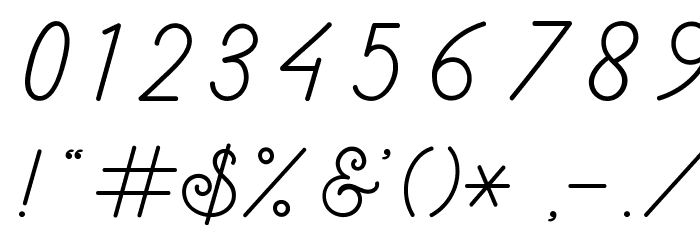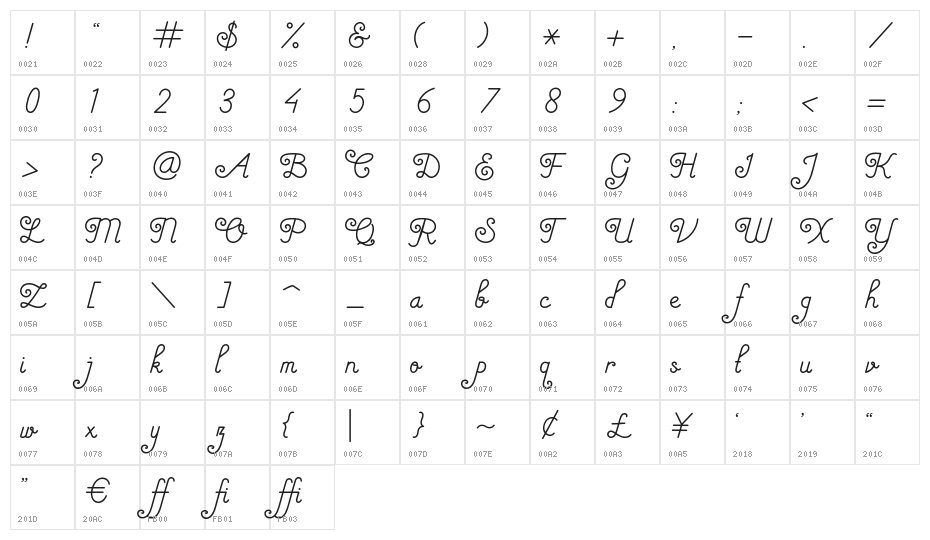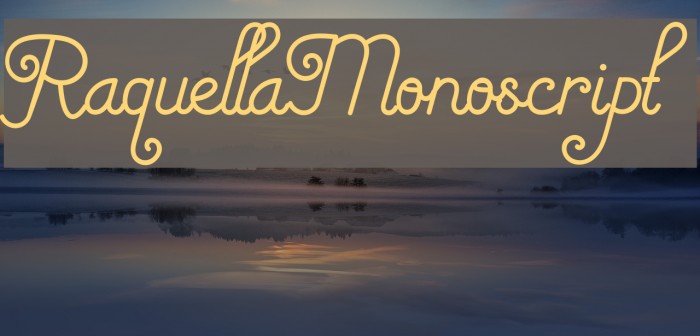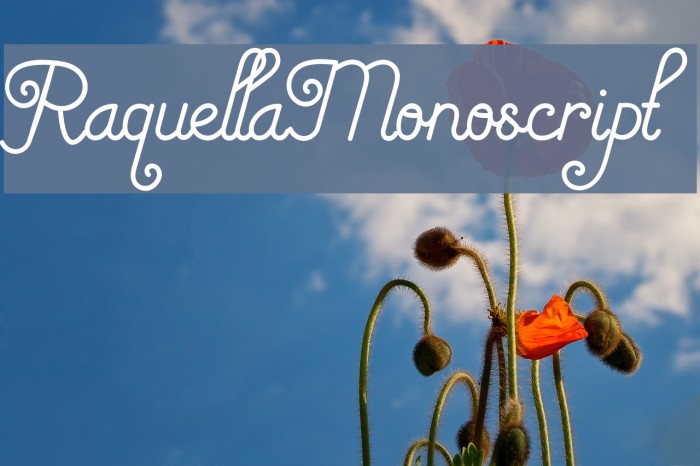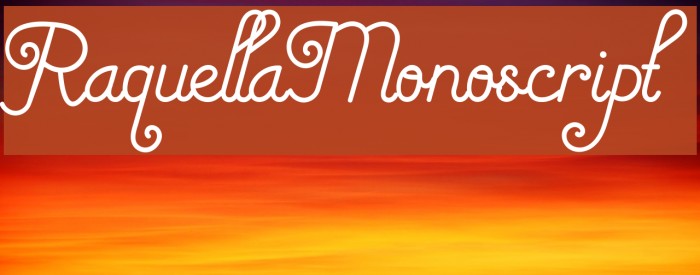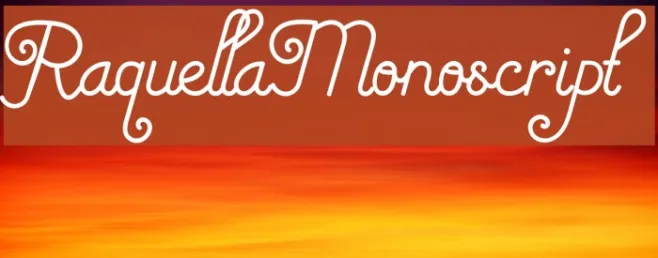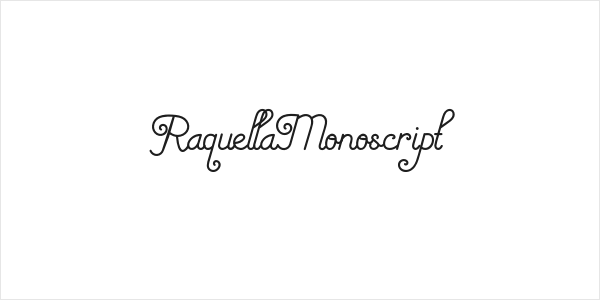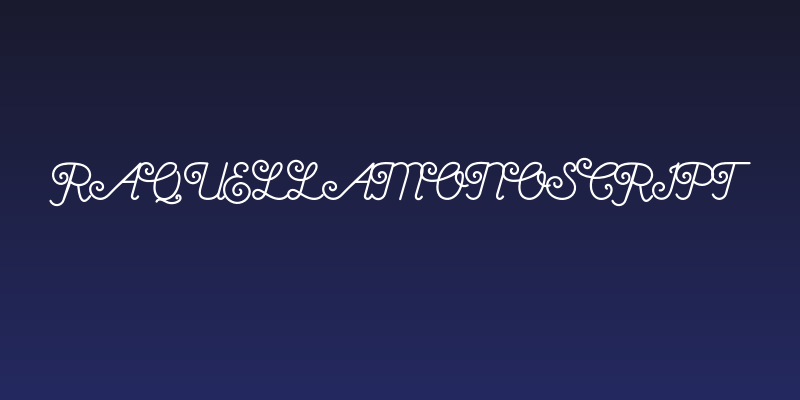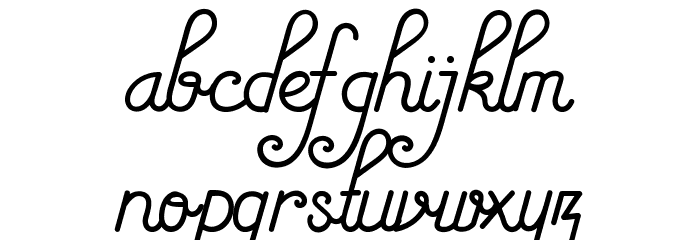
RaquellaMonoscript Font
RaquellaMonoscript Description
This font features an elegant and flowing script style with a whimsical touch. The uppercase letters are adorned with intricate swirls and loops, giving them a decorative and ornate appearance. The lowercase letters maintain a consistent cursive flow, with some characters featuring unique flourishes that add to the font's charm. The numerals are clear and maintain the script style, ensuring readability while preserving the overall aesthetic. Special characters are thoughtfully designed to match the font's playful yet sophisticated theme. This font is perfect for projects that require a touch of elegance and creativity.